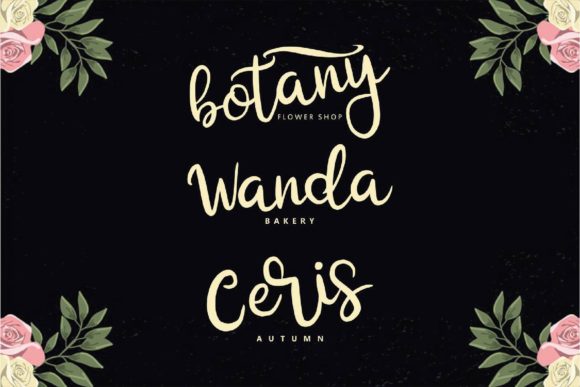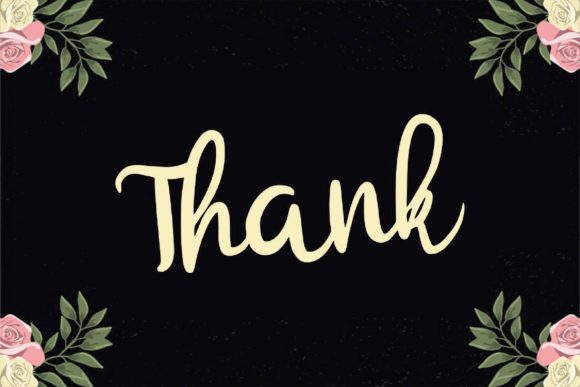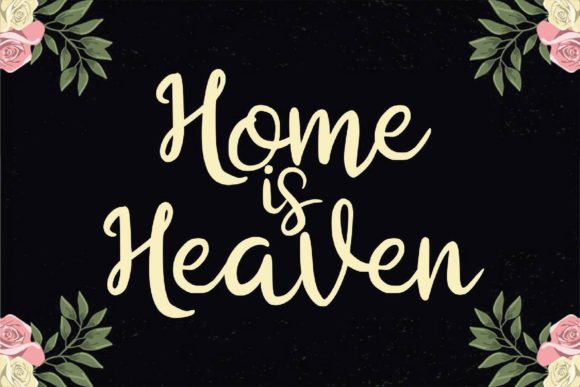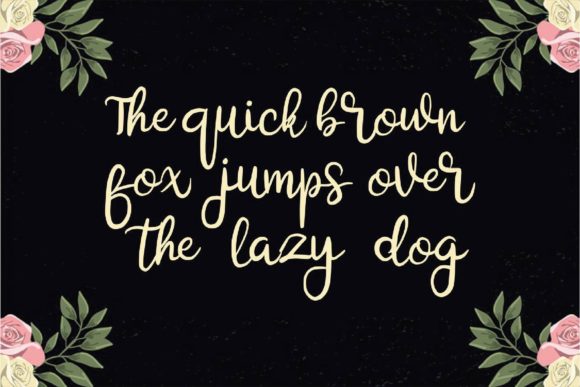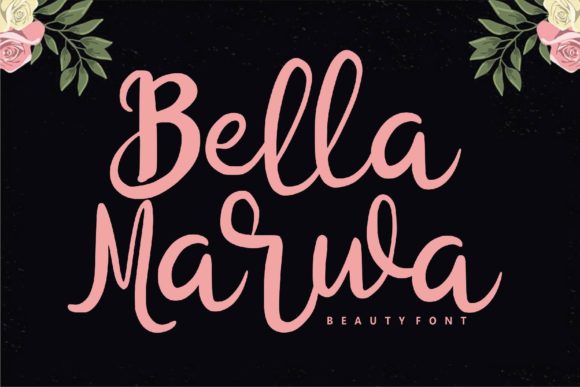
Bella Marwa Font: Elevate Your Design with a Sweet and Lovely Script
In the world of typography, fonts play a crucial role in making or breaking a design project. A well-chosen font can instantly elevate your design, making it stand out from the crowd. If you’re a designer or crafter looking for a font that exudes sweetness and loveliness, look no further than Bella Marwa Font. In this article, we’ll dive into the world of Bella Marwa, exploring its features, benefits, and uses.
Bella Marwa: A Sweet and Lovely Script
Bella Marwa is a beautiful script font that is sure to turn any design project into a true standout. With its elegant and flowing curves, this font is perfect for designers and crafters who want to add a touch of sophistication and whimsy to their work. Whether you’re creating a logo, branding materials, or social media graphics, Bella Marwa is the perfect choice.
Key Features of Bella Marwa Font
So, what makes Bella Marwa Font so special? Here are some of its key features:
- Elegant Script Style: Bella Marwa boasts a beautiful script style that is both elegant and playful. Its flowing curves and lines make it perfect for creating eye-catching designs.
- High-Quality Design: This font is designed with high-quality and precision, ensuring that it looks great in any size or format.
- Easy to Read: Despite its elegant style, Bella Marwa is easy to read, making it perfect for body text and headlines.
- Multilingual Support: Bella Marwa supports multiple languages, making it a great choice for designers who work with international clients.
Benefits of Using Bella Marwa Font
So, why should you choose Bella Marwa Font for your design projects? Here are some benefits:
- Instantly Elevate Your Design: With Bella Marwa, you can instantly elevate your design and make it stand out from the crowd.
- Perfect for Branding: This font is perfect for creating branding materials, such as logos, business cards, and brochures.
- Great for Social Media Graphics: Bella Marwa is also great for creating social media graphics, such as Facebook posts, Instagram stories, and Twitter headers.
- Easy to Pair with Other Fonts: This font is easy to pair with other fonts, making it versatile and flexible.
Uses of Bella Marwa Font
Bella Marwa Font is a versatile font that can be used in a variety of design projects. Here are some ideas:
- Logo Design: Use Bella Marwa to create a beautiful and elegant logo for your brand.
- Branding Materials: Create stunning branding materials, such as business cards, brochures, and letterheads.
- Social Media Graphics: Use Bella Marwa to create eye-catching social media graphics, such as Facebook posts, Instagram stories, and Twitter headers.
- Wedding and Party Decor: This font is perfect for creating beautiful wedding and party decor, such as invitations, banners, and garlands.
In conclusion, Bella Marwa Font is a sweet and lovely script that is sure to turn any design project into a true standout. With its elegant and flowing curves, this font is perfect for designers and crafters who want to add a touch of sophistication and whimsy to their work. Whether you’re creating a logo, branding materials, or social media graphics, Bella Marwa is the perfect choice. So why wait? Download Bella Marwa Font today and elevate your design to the next level!